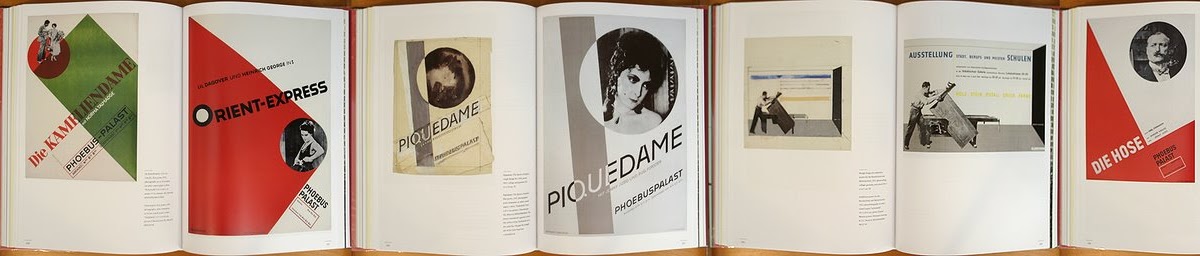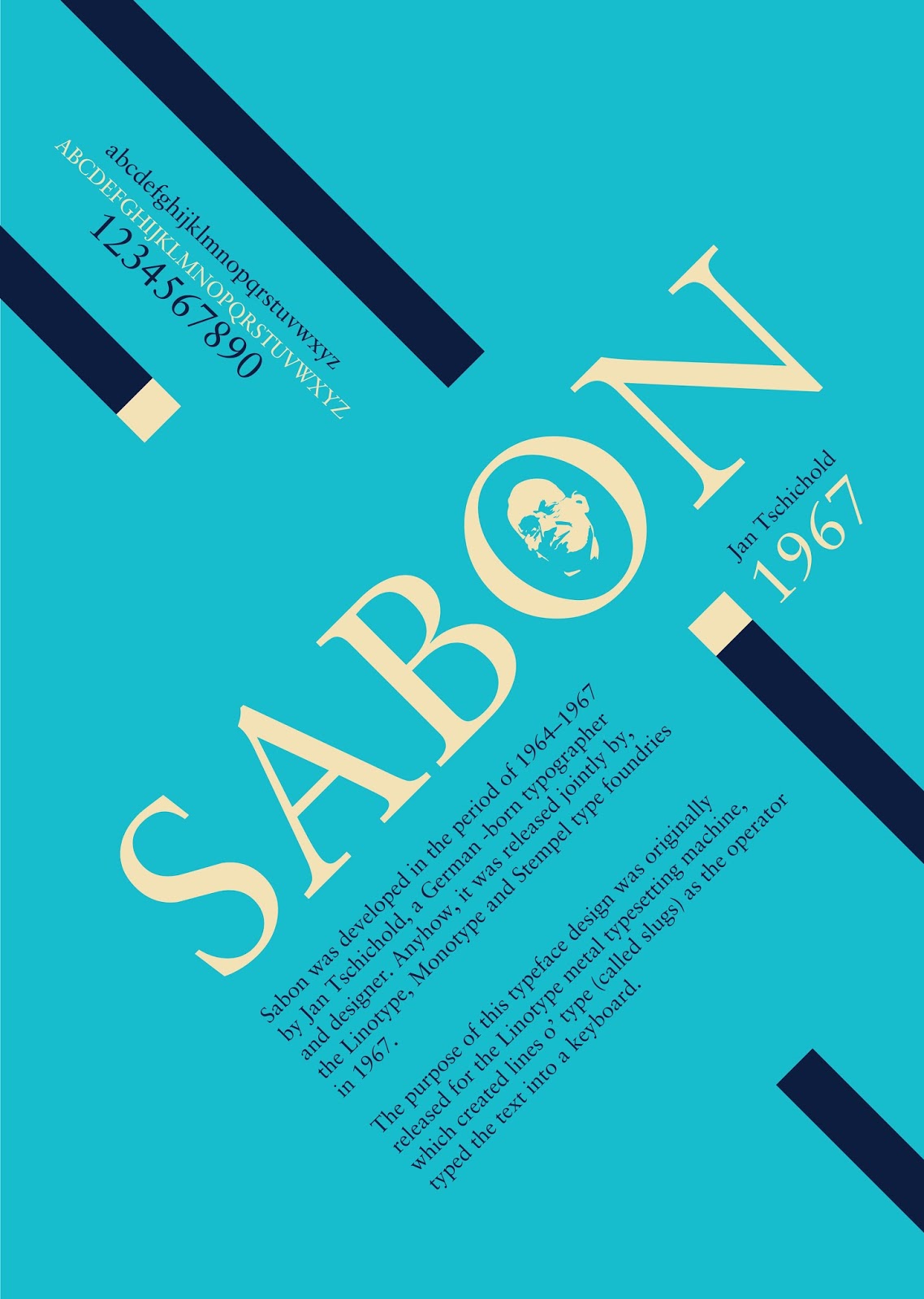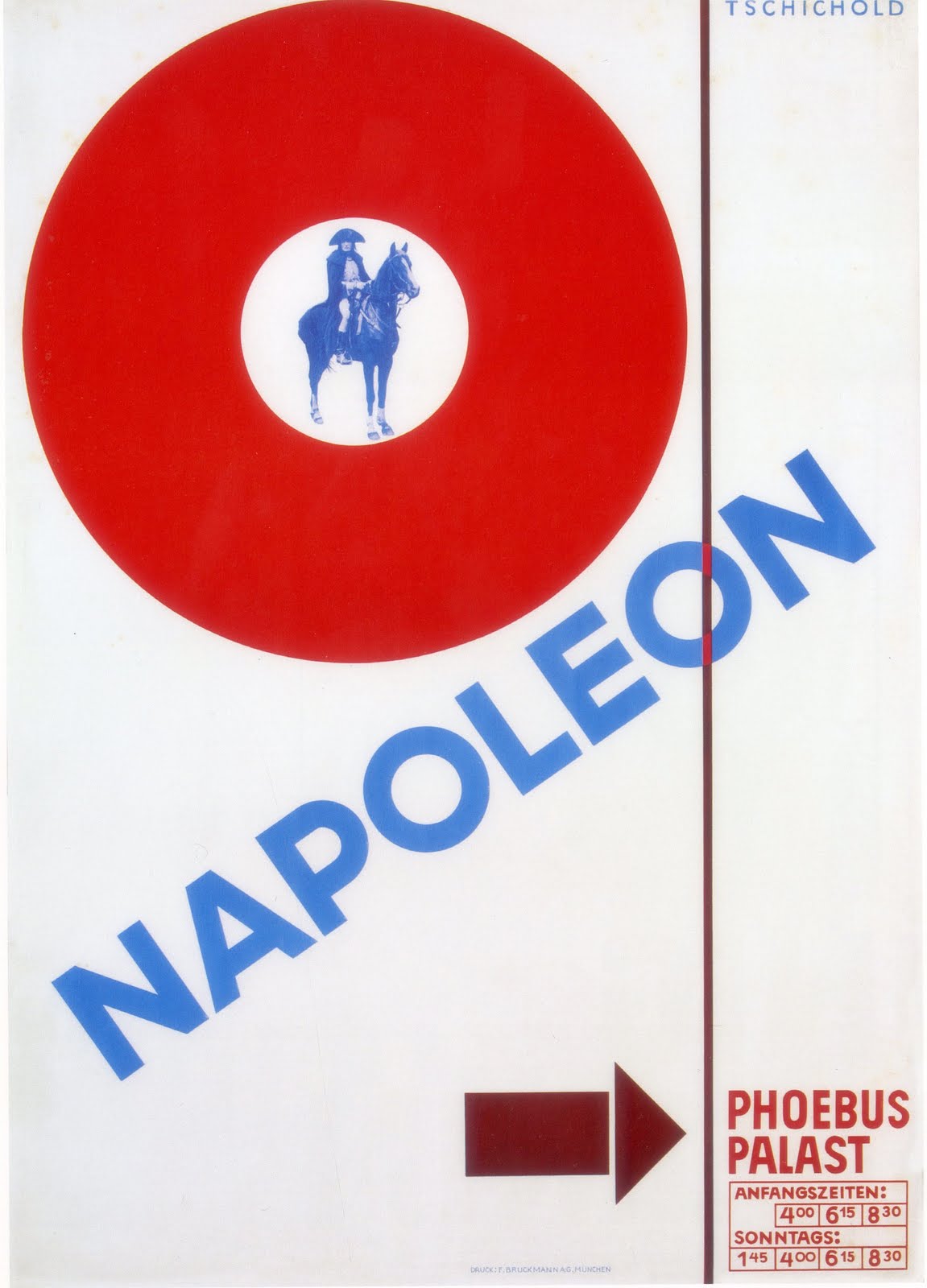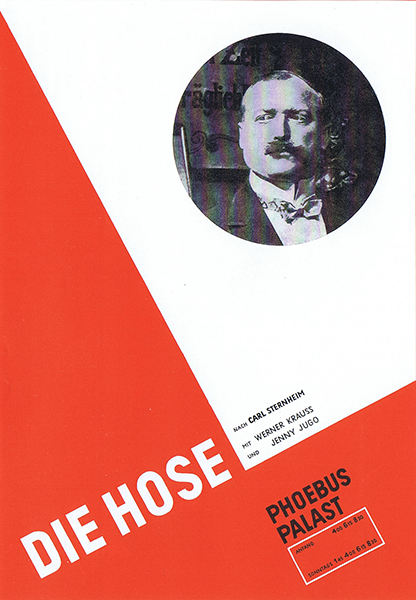
All Free PSD Mockups - Download Free SVG Cut FilesStudies at the akademie fuer graphische kuenste und buchgewerbe in leipzig. He condemned all typefaces except for sans serif types advocated standardized sizes of paper and set forth guidelines for establishing a typographic hierarchy when using type in design. Jan tschichold was as introduced to typography at a very early age due to his father who was a sign writer by trade.
Foundry type for hand composition linecasting and single type machine composition.
What classic font did jan tschichold design. Jan tschichold throwbackthursday jan tschichold 19021974 born in leipzig germanyjan tschichold is one of the most influential typographers of the 20th century. Industrial design 273 institutional 521 kids 368 lifestyle 645 literature 1518 local 605 music 2878. Is one of walter tiemanns master pupils and assistant to hermann delitsch. Yet all must come to end.
All 45 staff picks 8. 2 april 1902 11 august 1974 was a calligrapher typographer and book designerhe played a significant role in the development of graphic design in the 20th century first by developing and promoting principles of typographic modernism and subsequently and ironically idealizing. Jan tschichold designed sabon in 1964 and it was produced jointly by three foundries. A master in his field he was an accomplished designer writer and teacher.
Jan tschichold born 241902 in leipzig germany died 1181974 in locarno switzerland typographer calligrapher author teacher. Born in 1902 jan learned many things at an early age while assisting his father with written scripts. In 1946 he was employed by penguin books in london and in 1955 the pharmaceutical company hoffmann la roche hired his services. Uses of typefaces by jan tschichold.
In addition his hometown leipzig was the center of the german book trade. This was in response to a request from german master printers to make a font family that was the same design for the three metal type technologies of the time. Stempel ag linotype and monotype. After the war he made a name for himself with an array of publications lecture tours and practical projects.
Tschicholds 1964 sabon typeface is considered a modern classic. An independent archive of typography. And so it was that in the august of 1974 jan tschichold drew his last whisper of breath and bid the world adieu. A font inspired by a claude garamond font specimen sheet that would go on to become an instant addition to the annals of classic typographic design.
When tschichold wrote die neue typographie he set forth rules for standardization of practices relating to modern type usage. Fonts from the type designer jan tschichold in use. Jan tschichold born 241902 in leipzig germany died 1181974 in locarno switzerland typographer calligrapher author teacher. Is one of walter tiemanns master pupils and assistant to hermann delitsch.
Jan tschichold born johannes tzschichhold also known as iwan tschichold or ivan tschichold. Studies at the akademie fuer graphische kuenste und buchgewerbe in leipzig. Its an understatement to say he was aware of his own eminence.